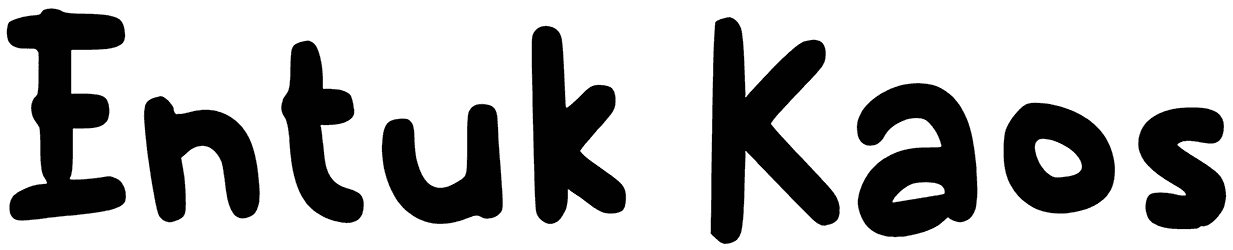
e Entuk Kaos Font
What your design needs to have a realistic and minimal vibe is a handwritten font like this one. The e Entuk Kaos font covers playful and soft characters, and you can count on it for many titles. Put this script font on your novel projects, namely a birthday party Instagram post, and enjoy the feedback.